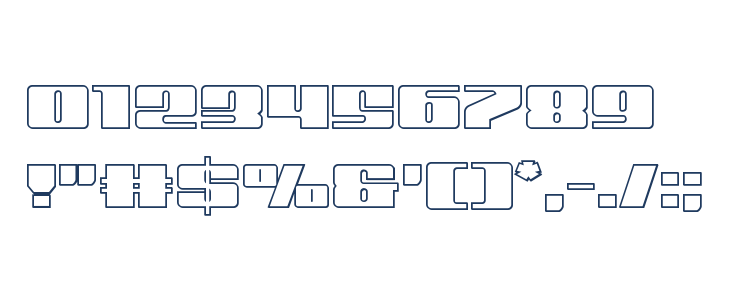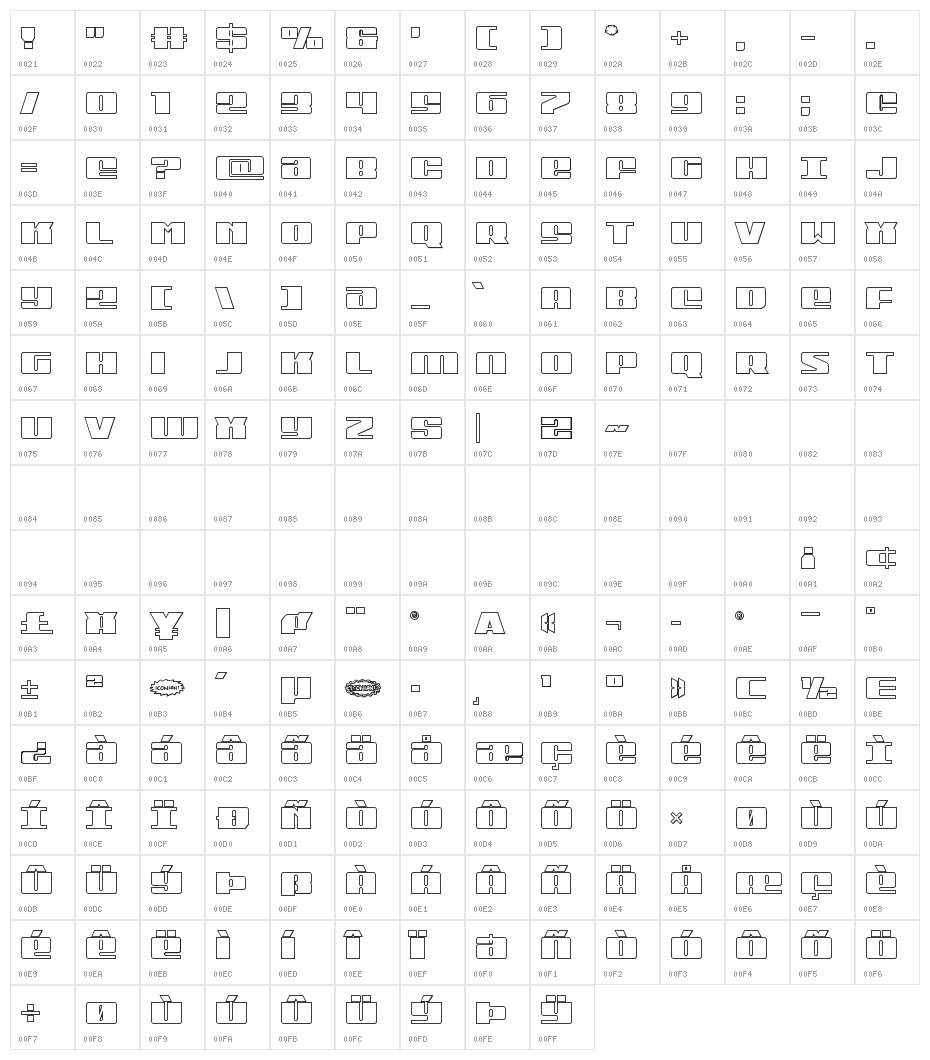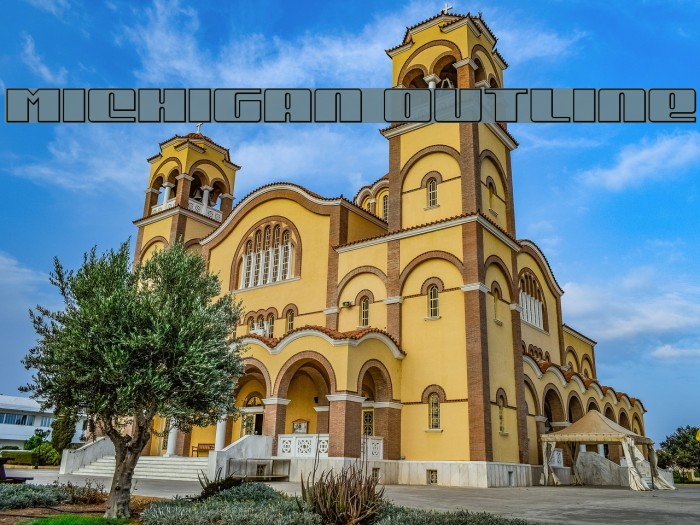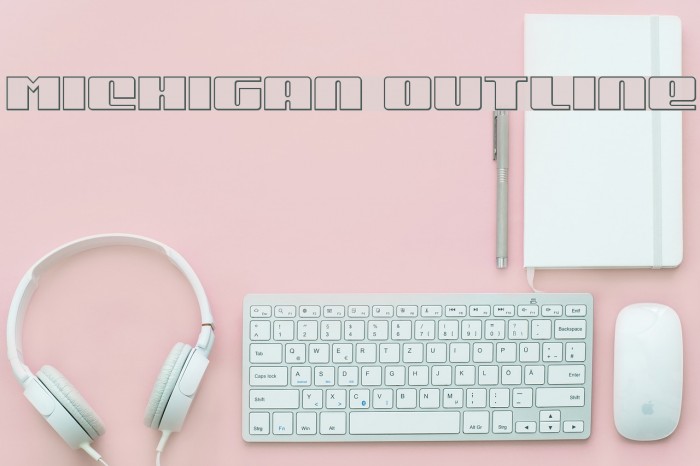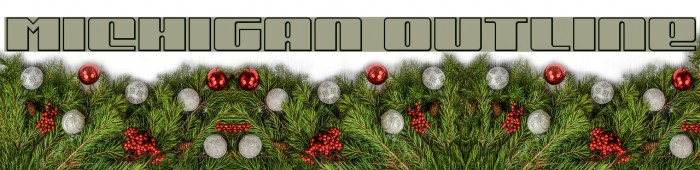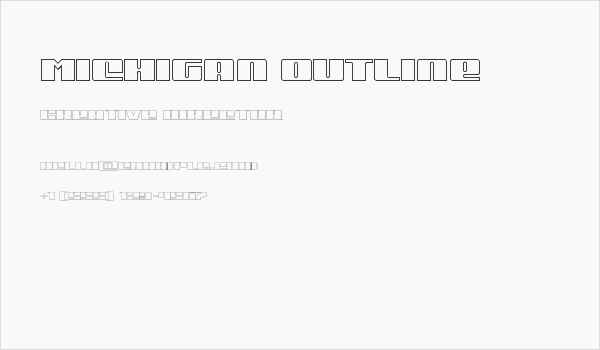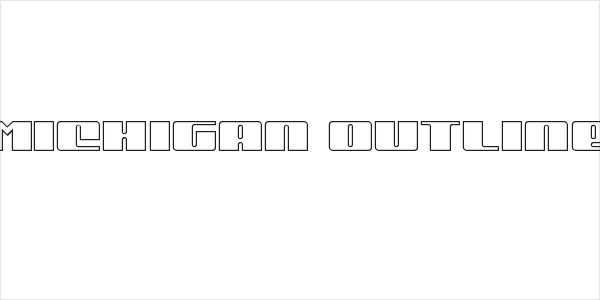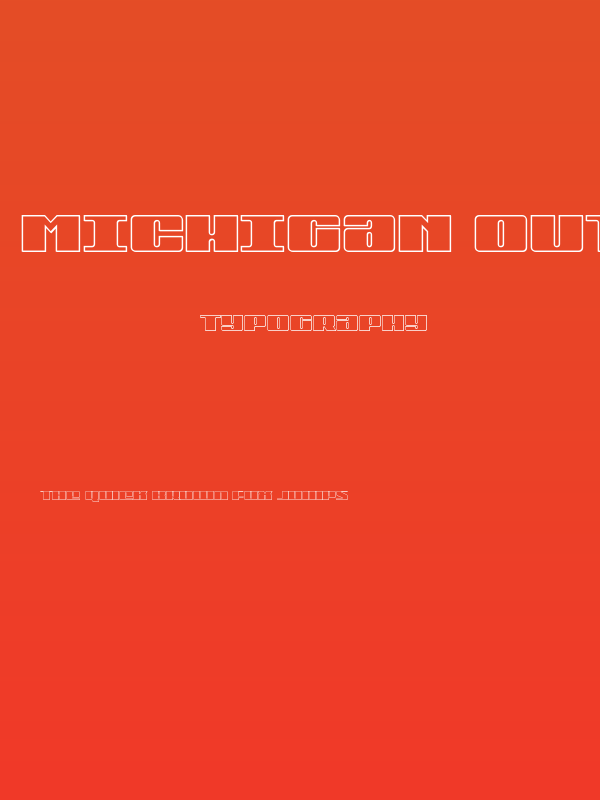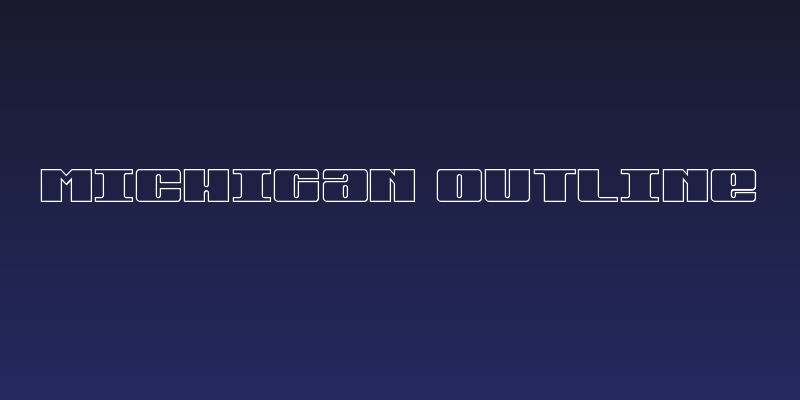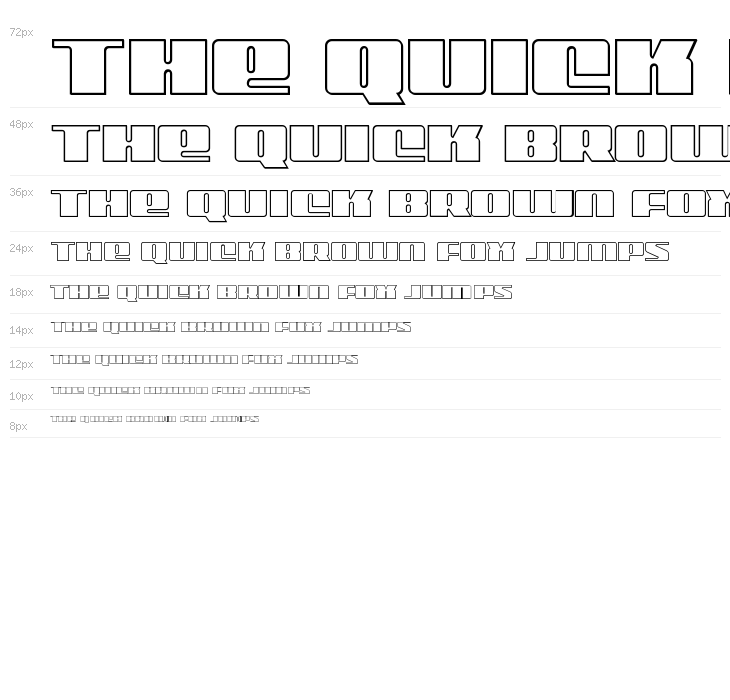
Michigan Outline Font
Michigan Outline Description
This font features a bold, geometric outline style with a futuristic and industrial feel. The characters are constructed with clean, straight lines and sharp angles, giving them a mechanical appearance. The uppercase and lowercase letters maintain a consistent height, contributing to a uniform look. The numbers and special characters follow the same design principles, ensuring cohesion across all glyphs. The font's outline nature allows for creative use of color and background, making it versatile for various design applications. Its distinct style makes it suitable for projects that require a modern and edgy aesthetic.